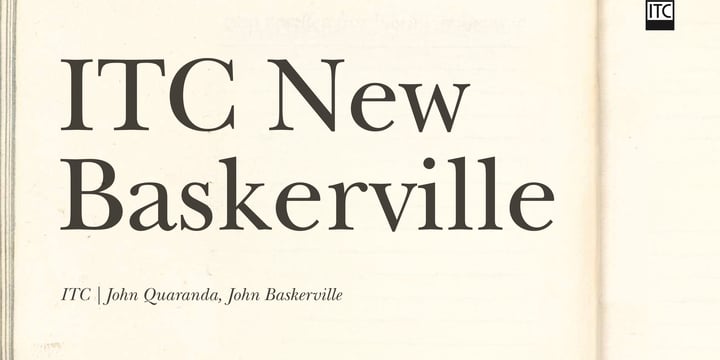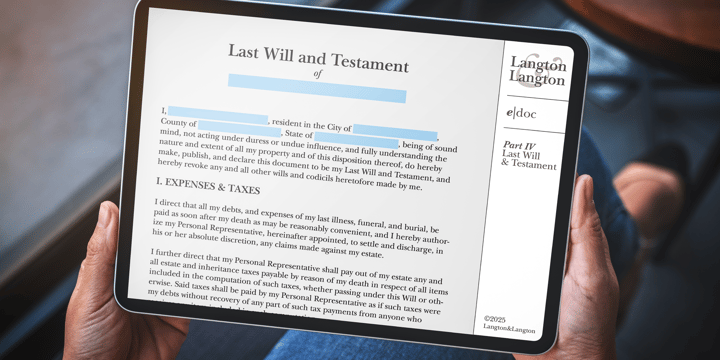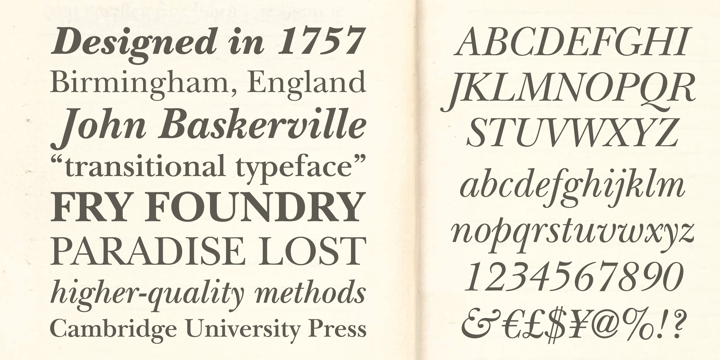
The designer John Quaranda created , a revival typeface based on Baskerville. Baskerville was developed in the 18th century by John Baskerville (1706–1775) and its clear, sharp image set it apart from others of its time. Originally released in only two versions, roman and italic, Baskerville has remained one of the world's most widely used typefaces. ITC New Baskerville is available in roman, semi bold, bold and black weights, each with a corresponding italic. ITC New Baskerville is a registered trademark of International Typeface Corporation.